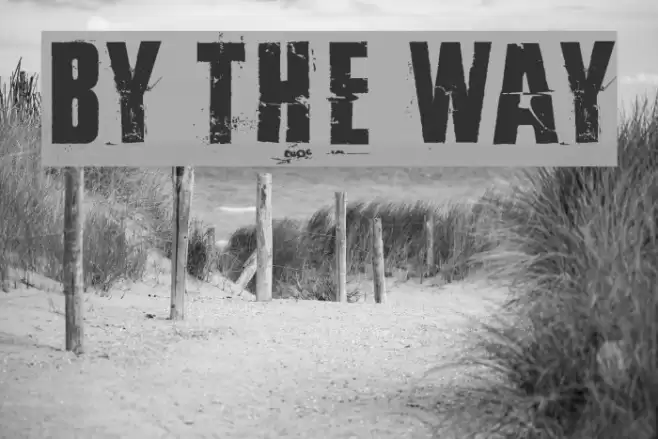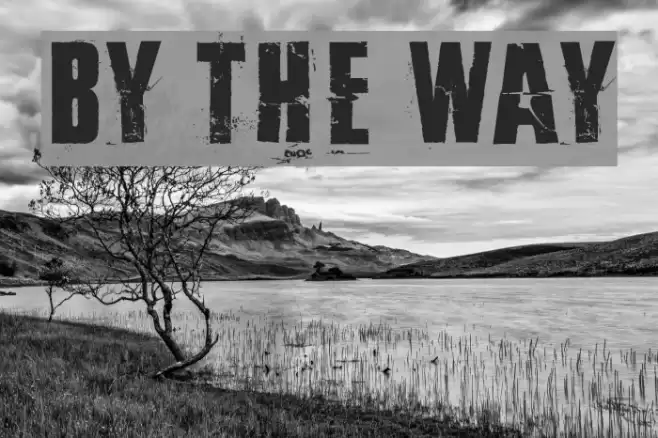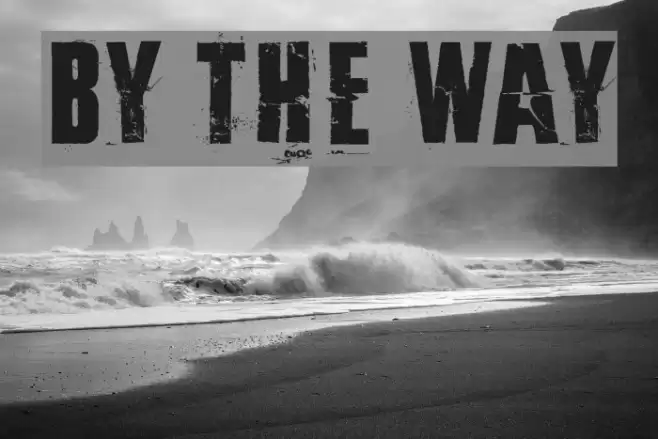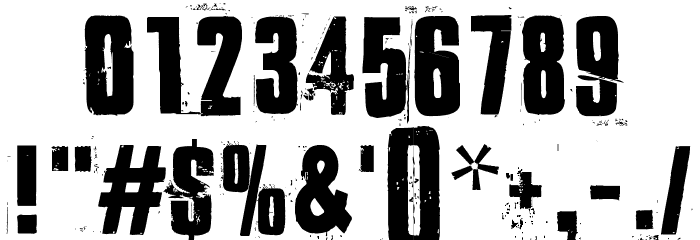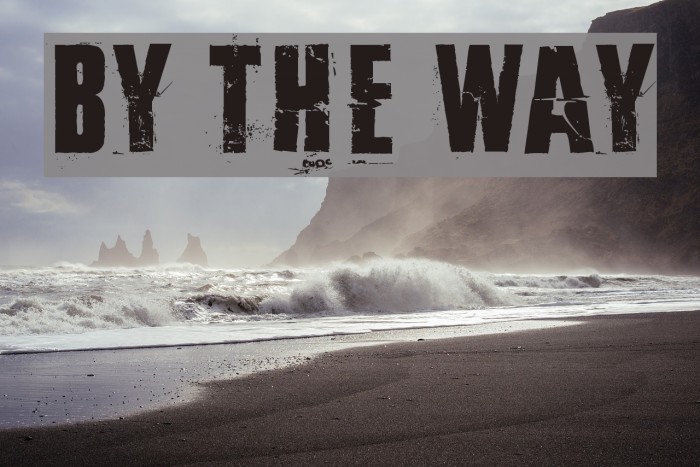
By the way Font
By the way Description
This font features a bold, distressed style with a rugged, worn appearance. The characters are blocky and uppercase, with a stencil-like quality that suggests a utilitarian, industrial aesthetic. The texture is uneven, giving it a grunge or vintage feel, as if the letters have been weathered over time. This adds a layer of character and depth, making it suitable for designs that require a strong, impactful presence. The numbers and special characters maintain the same distressed look, ensuring consistency across all glyphs.
A bold, distressed font with a rugged, industrial style from Fancy fonts.
- Proposed Projects: Ideal for posters, album covers, branding for edgy or vintage-themed products, and any design needing a strong, gritty impact.
- Overall Style: Vintage